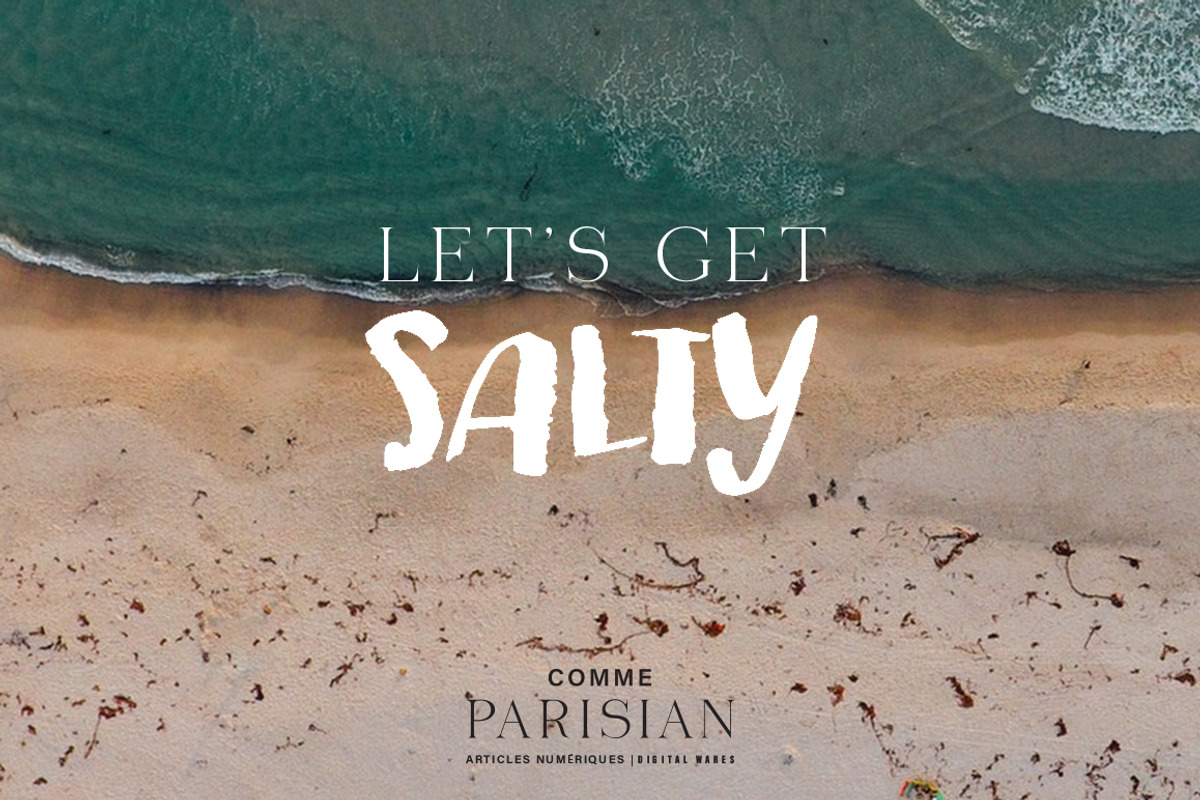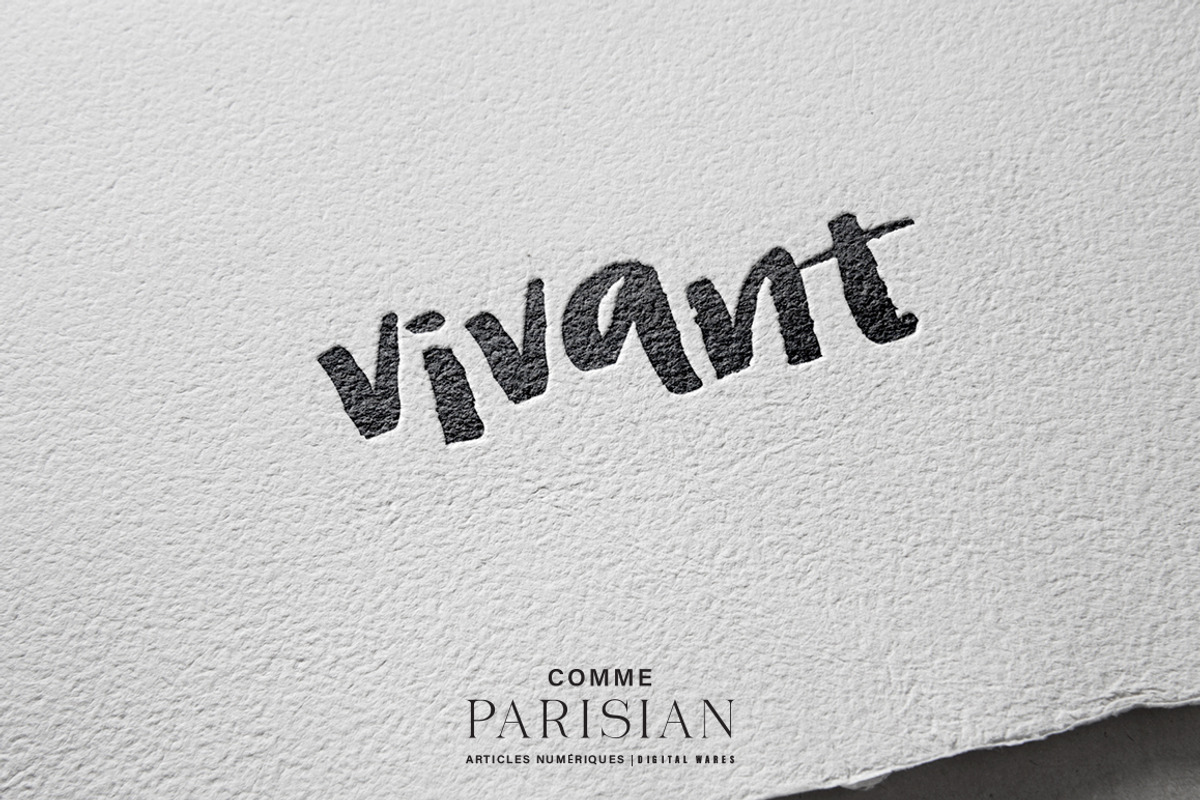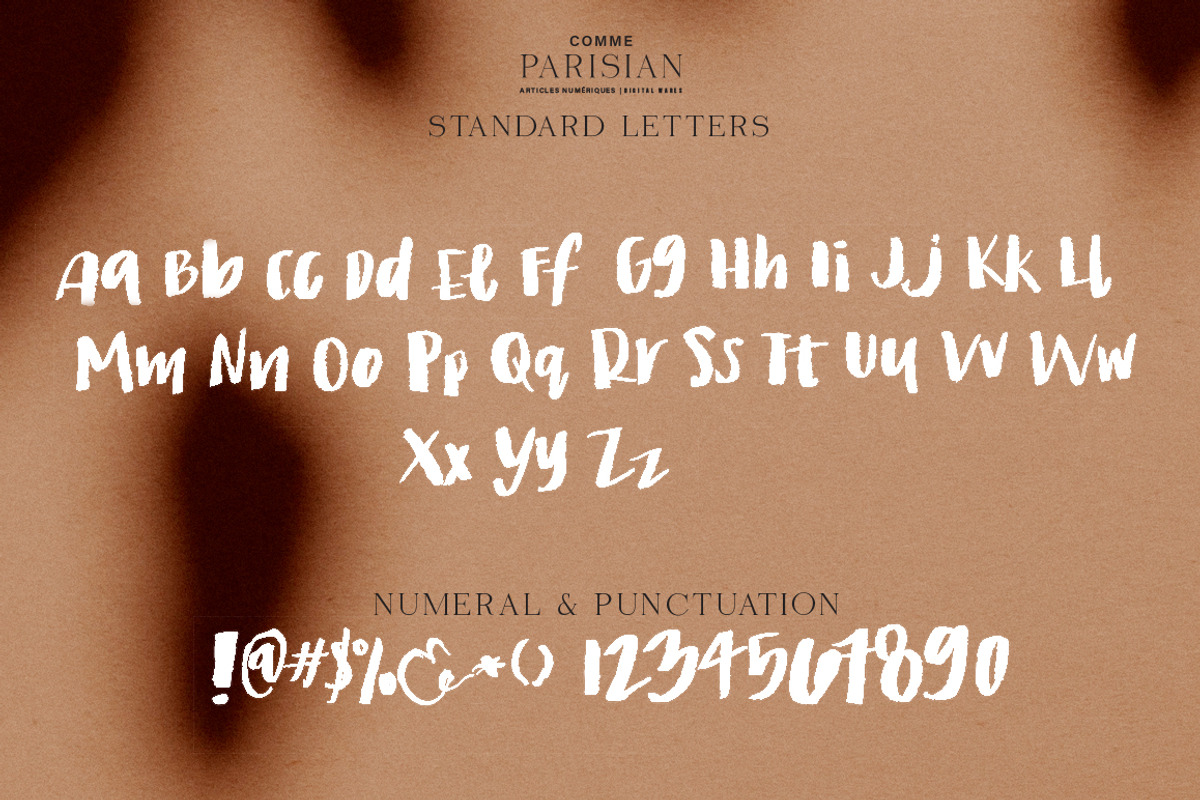
Vivant hand brushed font
Vivant hand brushed font by Comme Parisian is a font selected for branding, posters, packaging, typography.
Why Vivant hand brushed font is worth a look
Vivant hand brushed font by Comme Parisian fits naturally into Branding, posters, packaging, typography.